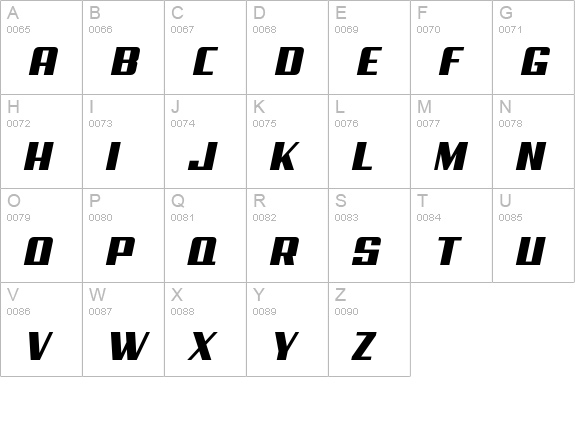
SteadfastOblique Font Details
Introducing SteadfastOblique font, a modern and versatile typeface that embodies strength and elegance. With its unique oblique design, this font adds a touch of sophistication to any project, making it perfect for branding, advertising, and editorial purposes. SteadfastOblique font is meticulously crafted, ensuring every letterform is carefully balanced, resulting in a harmonious and visually pleasing composition. Its clean lines and distinct slant create a sense of movement and dynamism, making it eye-catching and captivating to the viewer. One of the most appealing aspects of SteadfastOblique font is its versatility. Whether you're designing a logo, creating a website, or working on a print project, this font adapts effortlessly to various applications, allowing you to convey your message with precision and style. What sets SteadfastOblique font apart is its free availability. FontsMarket.com offers this font as a downloadable resource, allowing designers and creatives to easily access and utilize this remarkable typeface in their projects. This accessibility empowers individuals to express their creativity without any limitations, making SteadfastOblique font a valuable asset for both personal and commercial endeavors. In conclusion, SteadfastOblique font is a remarkable choice that combines strength, elegance, and versatility. With its distinctive oblique design, this font is sure to make a lasting impression and elevate any project to new heights. Download it for free at FontsMarket.com and unleash your creativity with this exceptional typeface.